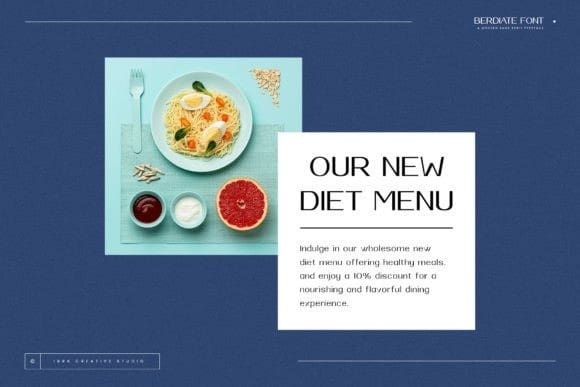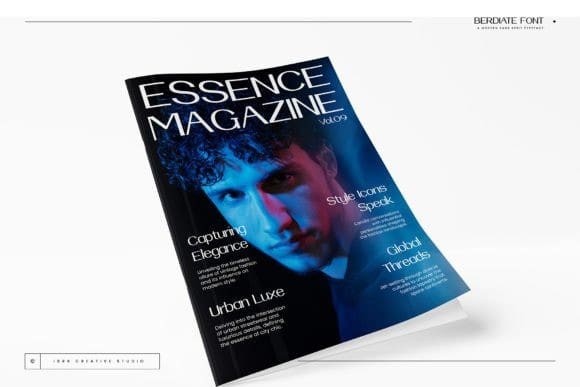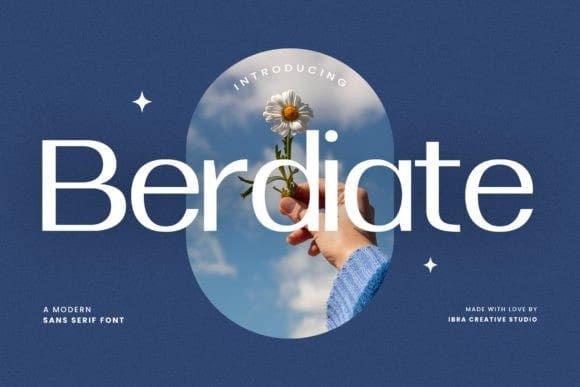
Berdiate Font
Berdiate Font, a modern sans-serif typeface, embodies the essence of contemporary design with its clean lines, geometric precision, and a touch of minimalist sophistication. Its letterforms are meticulously crafted to achieve optimal legibility and versatility across various design applications. The absence of decorative serifs and the sleek, uniform strokes contribute to a sleek and streamlined appearance, making Berdiate ideal for conveying a sense of modernity and clarity.